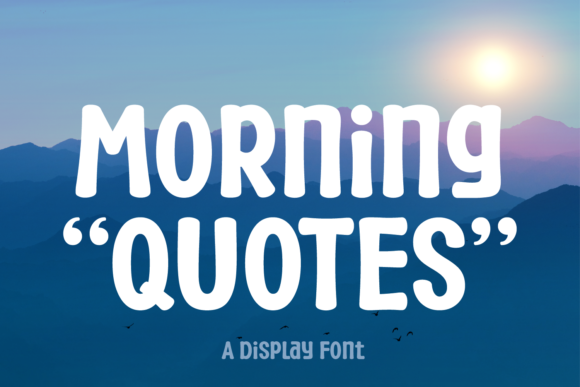
Step into the world of Morning Quotes Font, a display font that exudes charm and elegance, turning your creative visions into captivating realities. This modern and clean typeface, handcrafted by Creative Fabrica Fonts, is a masterpiece designed to elevate your designs and leave a lasting impression.
With its bold and thick strokes, Morning Quotes Font commands attention, making it perfect for crafting impactful quotes, posters, covers, art prints, logos, and branding. Its strong presence ensures your message stands out, leaving an indelible mark on your audience.
Unlock the endless possibilities of Morning Quotes Font and embark on a creative journey where your imagination knows no bounds. Let your words dance across the screen, infused with a touch of sophistication and a dash of playfulness. Create posters that ignite inspiration, covers that captivate, and logos that exude professionalism.
Dive into a world of creativity with Morning Quotes Font, where every letter is a stroke of genius, and every word a symphony of style. Transform your designs into works of art, leaving your audience spellbound and yearning for more.
Embrace Morning Quotes Font today and watch your creative dreams take flight. Its versatility and timeless appeal make it the perfect companion for any project, empowering you to craft designs that resonate with your audience and leave a lasting legacy.